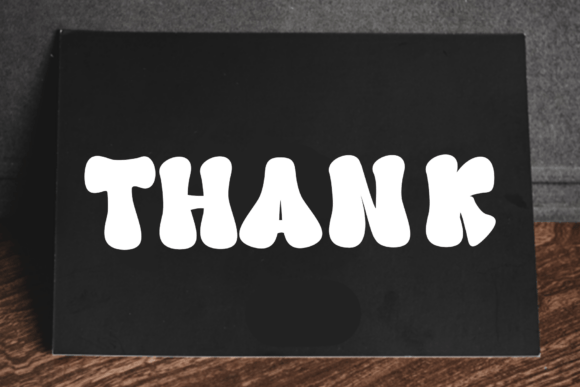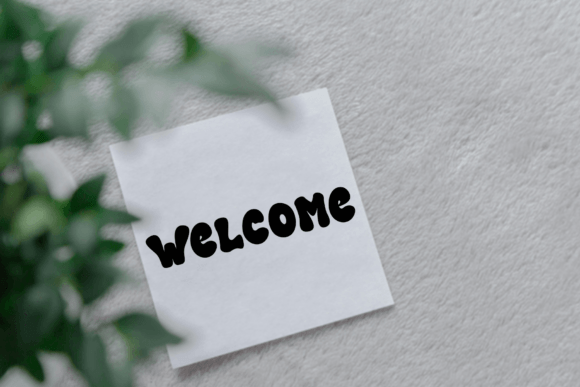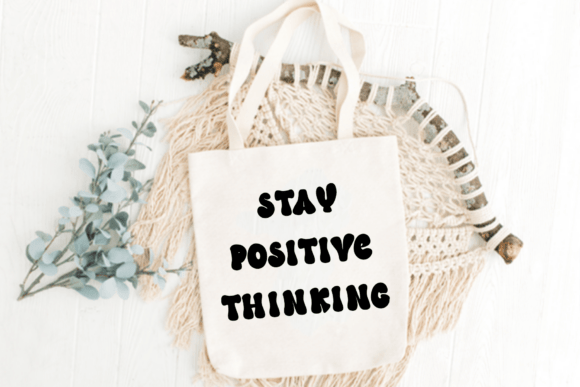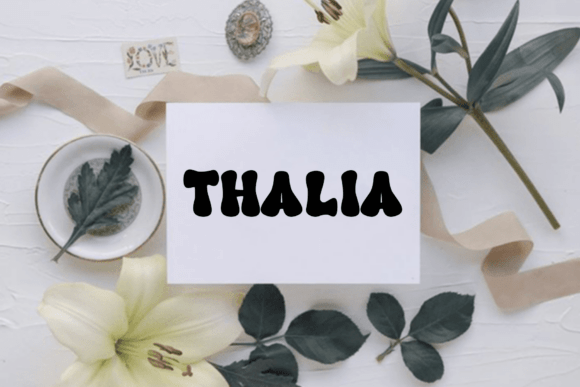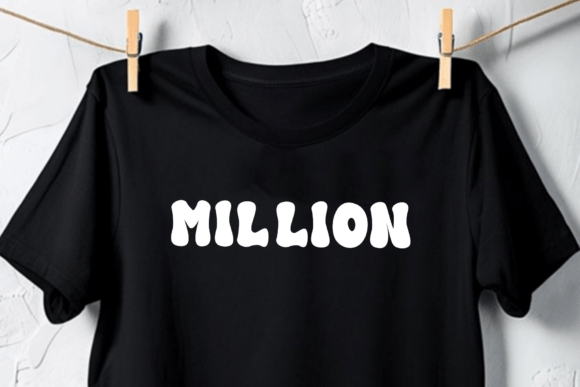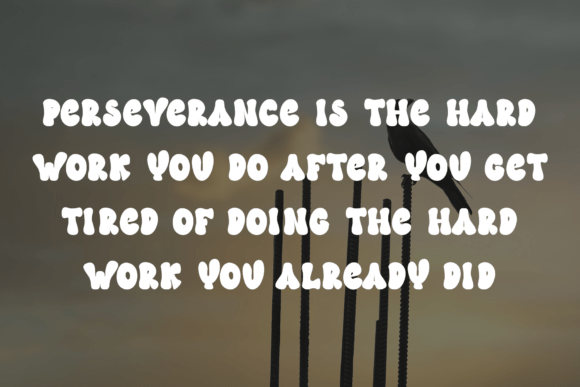
Get Ready to Deck the Halls with the Perfect Font for the Holiday Season
As I sat at my desk, surrounded by twinkling lights and the soft hum of holiday music, I couldn’t help but feel a surge of creativity. It’s that time of the year again – the time when we let our imaginations run wild and our designs shine with festive flair. And that’s exactly when I turned to the Baby Calm Font, a merry and whimsical typeface that captures the very essence of the holiday season.
With its decorative elements and playful charm, the Baby Calm Font is a designer’s dream come true. Whether you’re crafting greeting cards, gift tags, or holiday-themed projects, this font brings a cheerful and nostalgic ambiance to your words. And with its PUA encoding, accessing all the amazing glyphs and ligatures is a breeze, making it a valuable addition to any designer’s toolkit.
Baby Calm Font Key Features
- Unique Characteristics: Baby Calm Font features a unique, hand-drawn design with soft, rounded edges and a calming aesthetic, perfect for children’s books, nursery decor, and other applications where a soothing atmosphere is desired.
- Font Style: The font includes multiple font styles, including Regular, Italic, Bold, and Bold Italic, offering versatility for designers.
Baby Calm Font Review
As a designer, I was excited to try out the Baby Calm Font, with its promise of a soothing and calming experience for parents and babies alike. ✨ Here are my honest thoughts:
- The font’s soft, rounded edges and gentle curves make it a delight to read, especially for children’s books and nursery decor.
- The font’s unique letterforms and subtle textures add a touch of whimsy and personality to any design project.
- The font’s OpenType features allow for a range of stylistic variations, making it easy to customize and adapt to different design needs.
- The font’s small character set and limited language support may be a drawback for designers who need to work with multiple languages or require a more comprehensive font collection.
- The font’s delicate nature may not be suitable for bold or dramatic design projects, where a more assertive font might be needed.
The Baby Calm Font is a lovely addition to any designer’s toolkit, perfect for projects that require a soothing and gentle tone. While it may have some limitations, its unique charm and versatility make it a worthwhile investment for designers who want to add a touch of whimsy and personality to their work.
Tips for Getting the Most Out of Baby Calm Font
Use Baby Calm Font for creating a soothing and calming atmosphere in your designs.
Pair it with pastel colors and gentle graphics for a cohesive look.
Use Baby Calm Font for:
Children’s product packaging and branding.